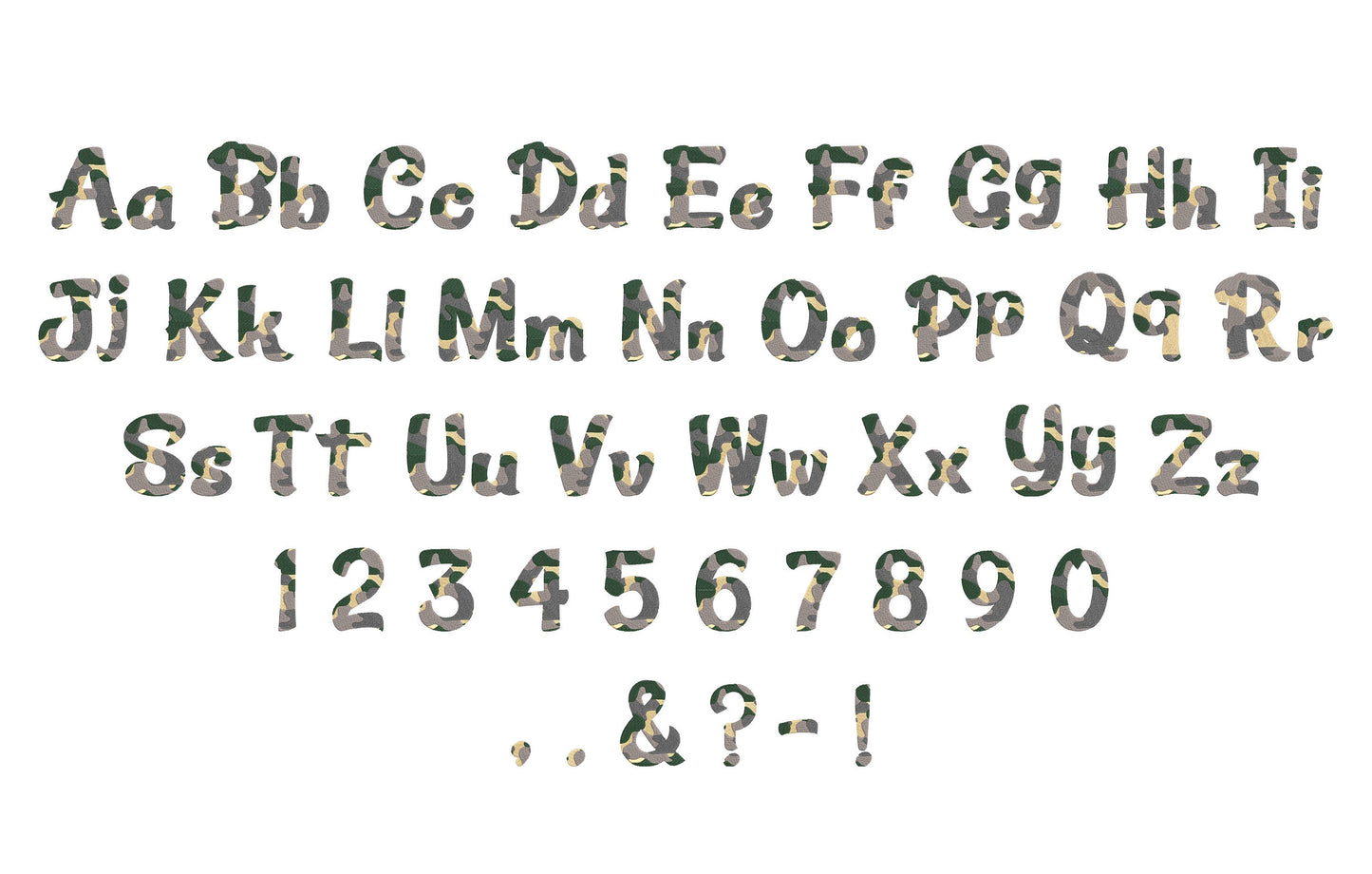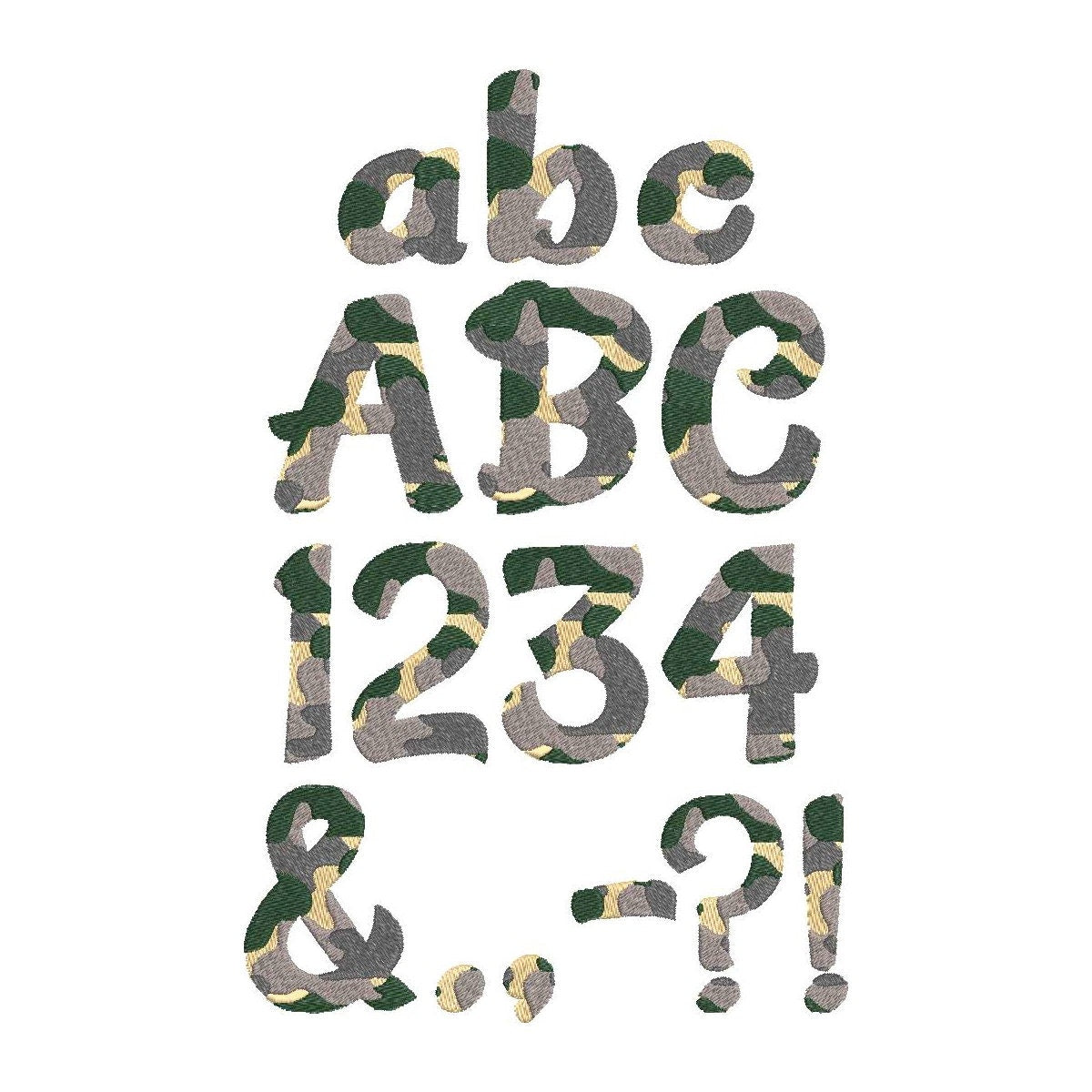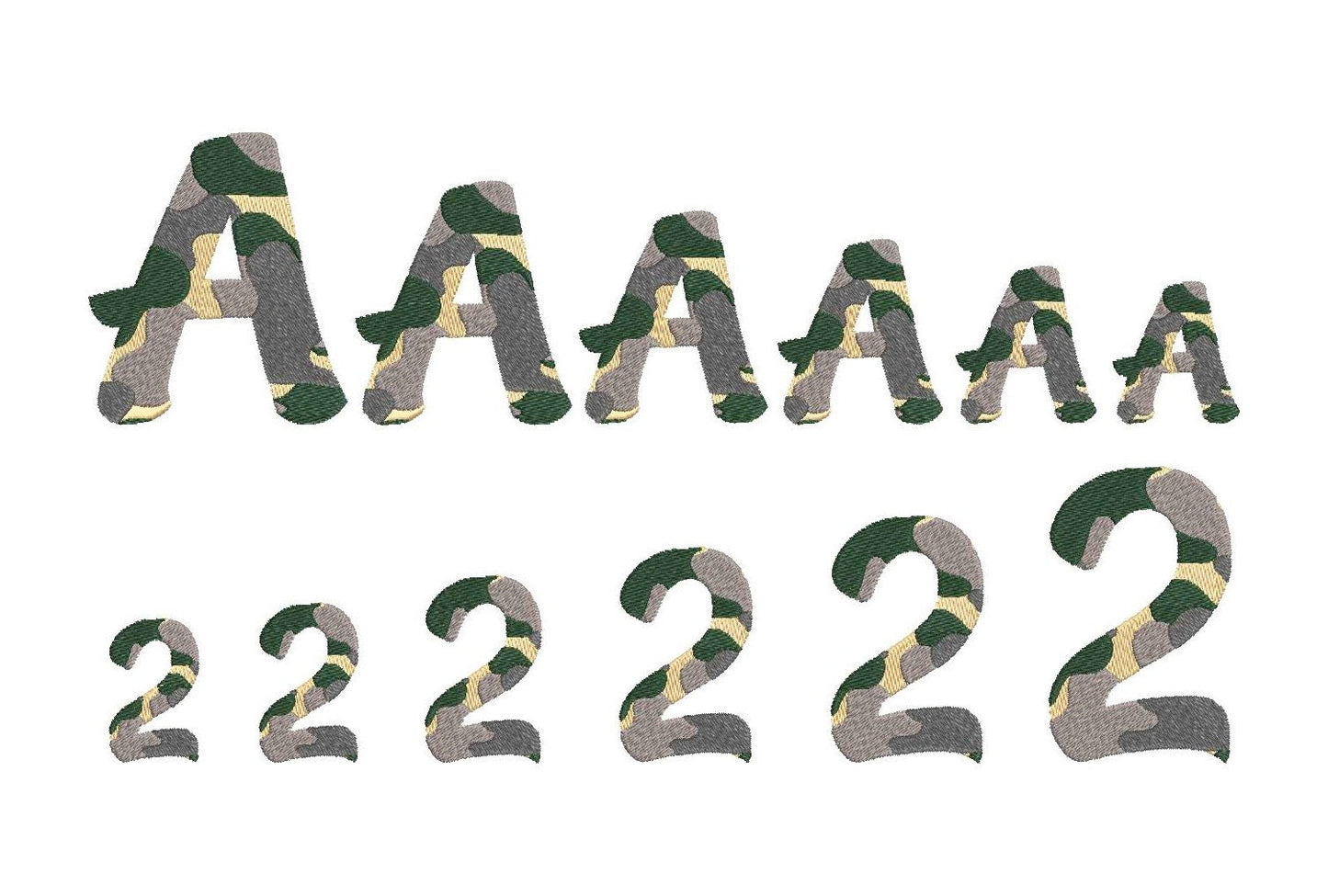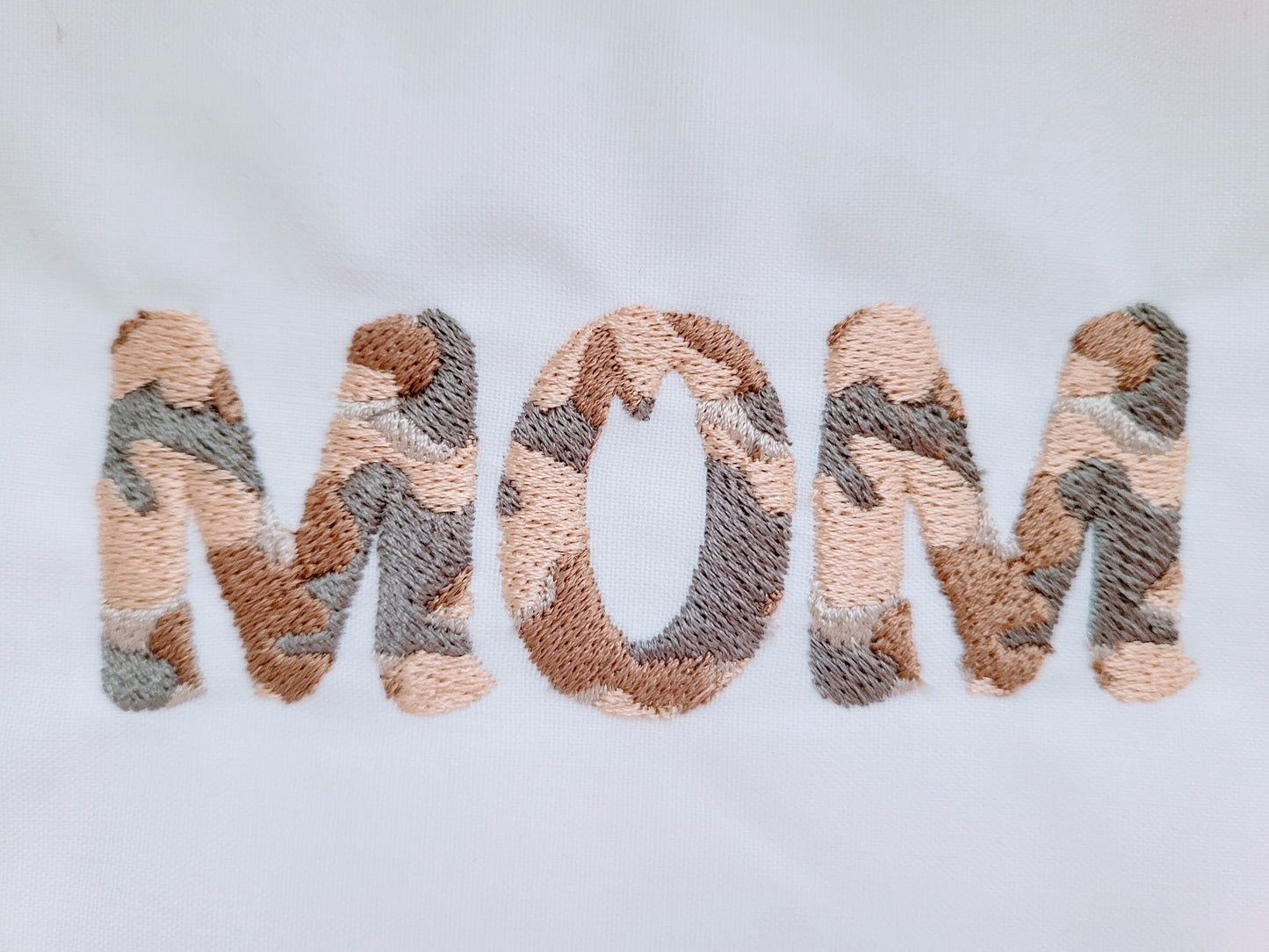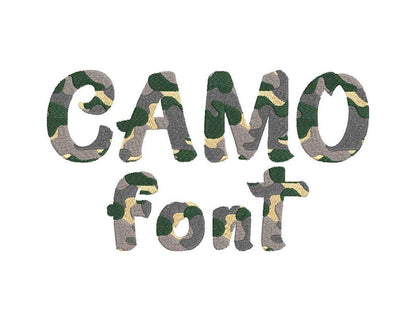
Or click to open the linkA military camouflage font in four colors. Fun for army-themed shirts, hats, bags and boys' birthday outfits.
Uppercase and lowercase letters, numbers 0 to 9 and punctuation. Six sizes: 1.5, 2, 2.5, 3, 3.5 and 4 inches. Every letter is filled with a 4-color camo pattern.